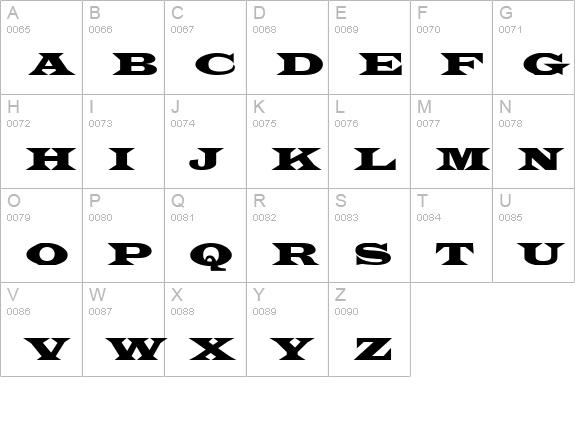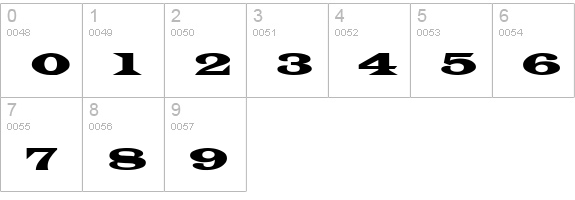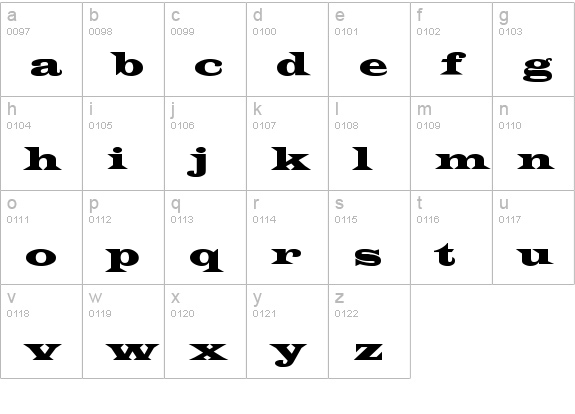
Espana Normal Font Details
Espana Normal is the standard, neutral variant in the Espana typeface family \xE2\x80\x94 well suited to general body text, paragraphs, and standard typographic work.
Espana Normal font combines traditional elegance with modern simplicity, making it suitable for a wide range of design projects. Its clean lines and balanced proportions give a timeless and sophisticated appearance to any text or title. The versatility of Espana Normal font allows it to be seamlessly integrated into various design styles, from classic to contemporary. What makes Espana Normal font even more appealing is that it is available for free download at FontsMarket.com. This means that you can easily access this high-quality font without any cost, making it a valuable addition to your font library. Whether you are working on a professional project or a personal design, Espana Normal font is a reliable choice that will elevate your work with its refined aesthetic. Experience the beauty and functionality of Espana Normal font today by downloading it for free at FontsMarket.com.